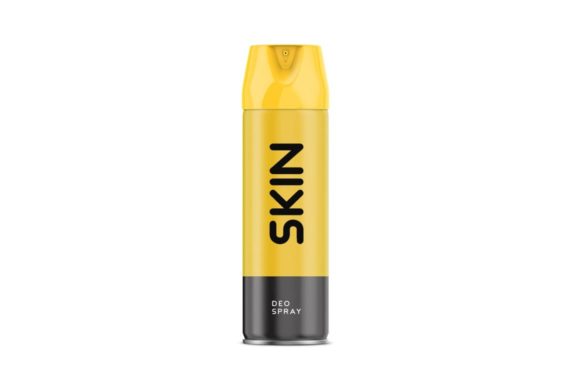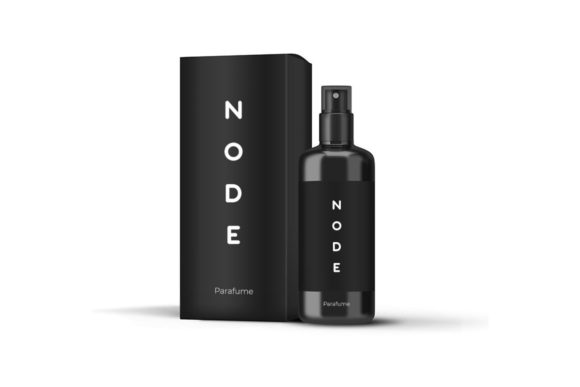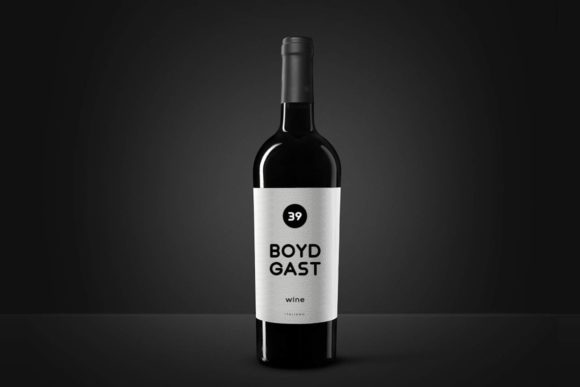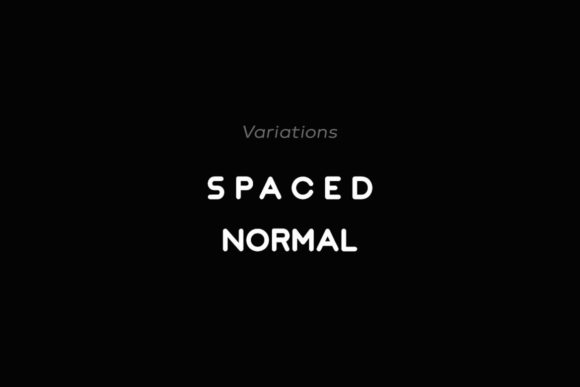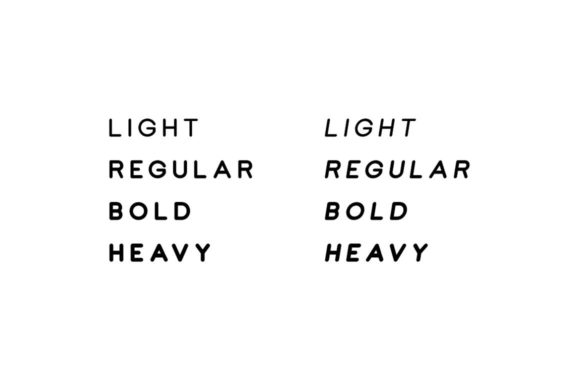
Introduction to Jaquel Font
Have you ever found yourself stuck in a design rut, searching for that perfect font to elevate your creative project? We’ve all been there. It’s that moment when a well-chosen font can make all the difference between a good design and a great one. For designers, finding a high-quality font that adds a touch of sophistication to our work is invaluable.
Enter Jaquel Font, a sleek and modern sans serif font that’s about to become your new go-to design resource. With its clean lines and minimalist aesthetic, Jaquel Font is perfect for adding a cool and techy vibe to your web designs, logos, or any project that requires a smart and modern touch.
Key Features of Jaquel Font
- High-quality design resource with a unique, modern aesthetic, perfect for creative projects.
- Unique characteristics include elegant lines, sophisticated typography, and a versatile design that adapts to various creative projects.
Honest Review: Jaquel Font
I recently stumbled upon Jaquel Font, a high-quality design resource that has been a game-changer for my creative project. The moment I laid eyes on it, I knew it was something special. With its unique style and versatility, I was eager to dive in and see what it could do.
Here are some of the things that really stand out about Jaquel Font: ✨
- Unique style: Jaquel Font boasts a one-of-a-kind aesthetic that sets it apart from other fonts.
- High-quality design: The font is meticulously crafted, making it perfect for any serious design project.
- Transparent background: This feature makes it easy to work with, allowing for seamless integration into any design.
While Jaquel Font is an excellent resource, there are a few limitations to be aware of: ⚠️
- Limited character set: The font’s character set is somewhat limited, which may not be ideal for projects that require a wide range of characters.
- Not suitable for all projects: Due to its unique style, Jaquel Font may not be the best choice for more conservative or traditional design projects.
Overall, I’m thoroughly impressed with Jaquel Font. Its high-quality design, transparent background, and free download make it an essential tool for any designer. While it may have some limitations, it’s a resource that I highly recommend for any creative project.
The Jaquel Font is a high-quality design resource that offers a unique and elegant style for creative projects. With its transparent background, it can be easily integrated into various design platforms.
To get the most out of the Jaquel Font, use it in combination with other design elements to create a cohesive and visually appealing design. Experiment with different font sizes, colors, and styles to find the perfect balance for your creative project.
The Jaquel Font is commonly used in branding, marketing materials, and web design. Its elegant and sophisticated style makes it ideal for creating professional-looking designs that make a lasting impression.